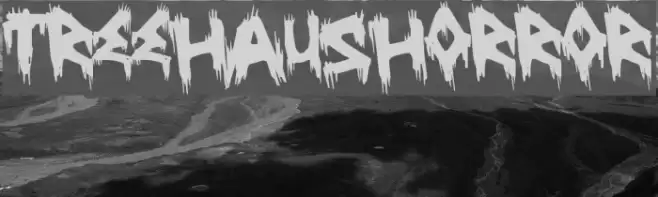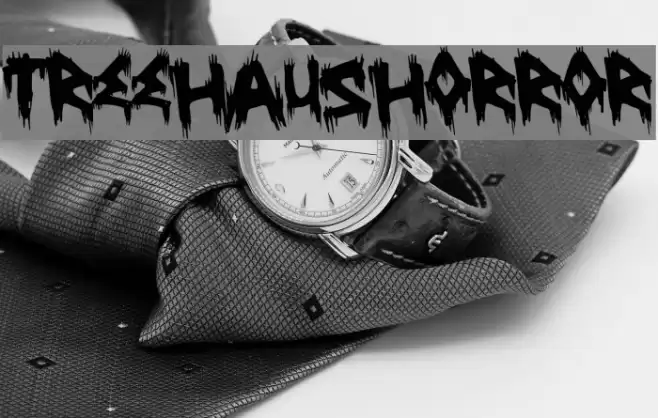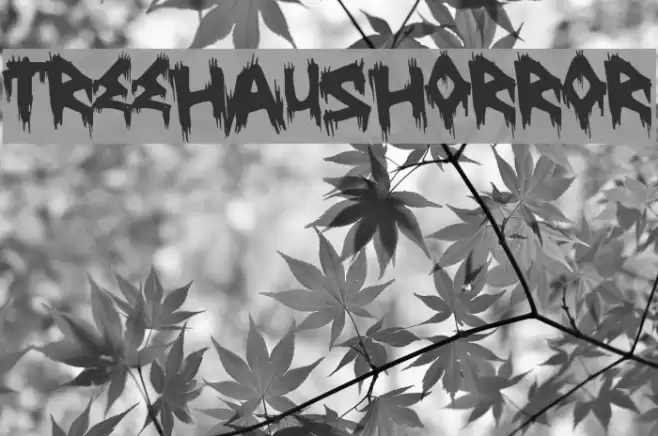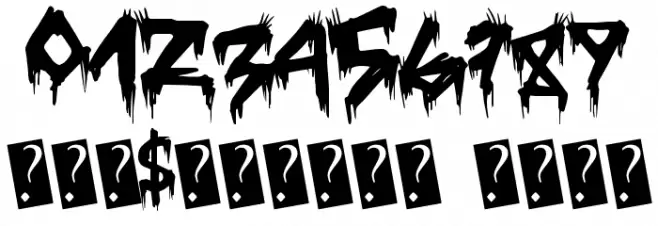
TreehausHorror Font
TreehausHorror Description
This font exudes a chilling and eerie aesthetic, perfect for horror-themed designs. The characters are jagged and irregular, resembling torn paper or claw marks, which adds to its unsettling vibe. The uppercase and lowercase letters maintain a consistent style, with sharp edges and uneven strokes that enhance the font's menacing appearance. The numbers and special characters follow the same design principles, ensuring a cohesive look across all elements. This font is ideal for creating a spooky atmosphere in posters, Halloween invitations, or any project that requires a touch of horror.
A jagged, horror-themed font with sharp, irregular strokes from Uncategorized fonts.
- Proposed Projects: Ideal for Halloween posters, horror movie titles, spooky invitations, and themed event flyers.
- Overall Style: Horror, Spooky, Decorative
- Use Case: Headlines, Posters, Themed Events